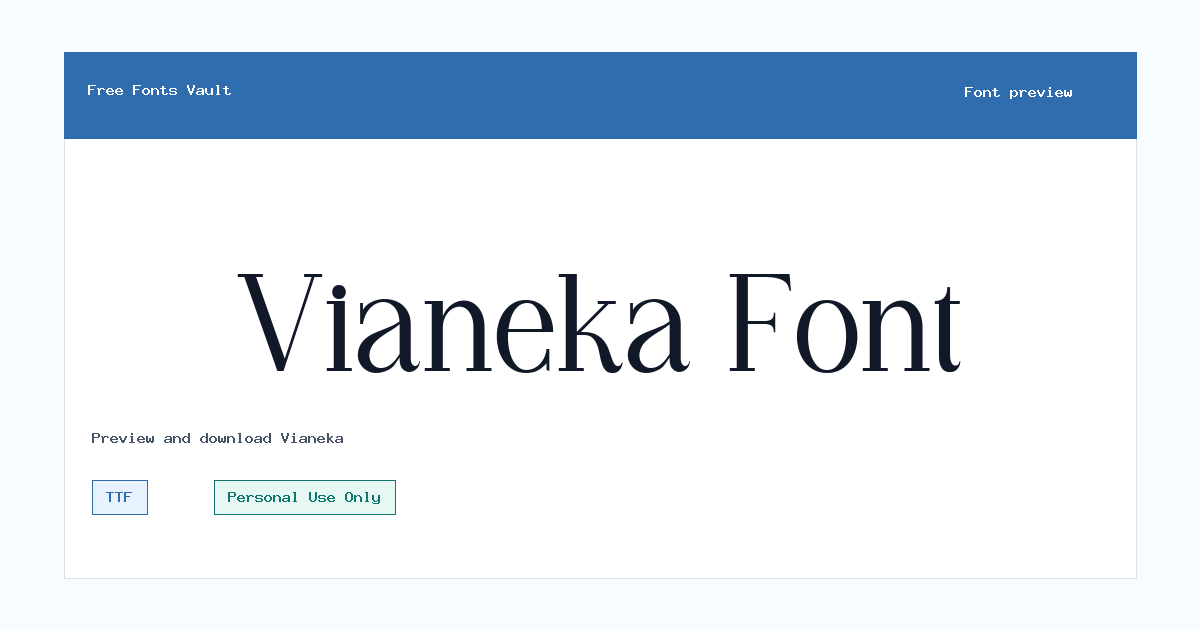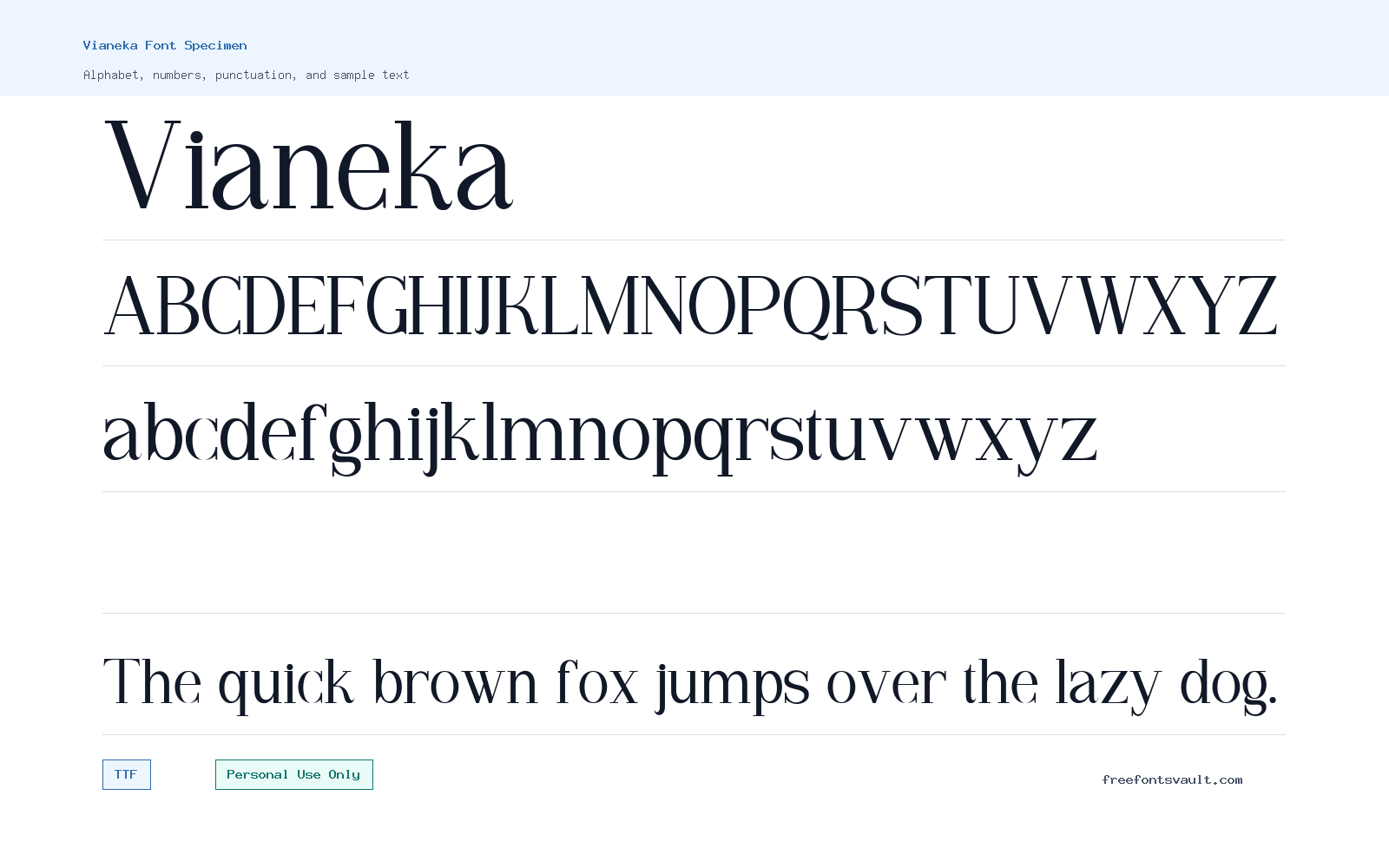
Vianeka
Vianeka font.
Vianeka is a serif font for visitors who want a polished display style for personal design tests, mockups, and short pieces of text. It comes as a regular TrueType font file and should be treated as Personal Use Only unless you confirm different rights from the font owner.
About Vianeka Font
Vianeka works best when you give it room to show its serif character. Use the preview box to test the exact words you plan to use, especially names, brand-style headings, invitations, quotes, or social graphics. Because only the regular style is present, it is better suited to finished-looking display text than to a full typography system with bold, italic, and multiple weights. Try it in larger sizes first, where spacing, curves, and letter shapes are easier to judge.
For practical use, keep Vianeka focused on short text. It can be useful for personal posters, mood boards, title cards, packaging mockups, Pinterest graphics, quote images, and logo concept drafts. If you need body copy, pair it with a quiet sans serif or a simple text serif so the page remains easy to read. Before downloading, preview uppercase, lowercase, numbers, and punctuation. Also test tricky letter pairs in your own wording, because display fonts can look very different depending on the word.
- Serif display direction suited to headings, short labels, and personal concept work
- Personal logo drafts, name styling, and branding mockups
- Invitations, quote graphics, social posts, posters, and title layouts
What fonts pair well with Vianeka?
Use a clean sans serif or a simple reading serif for supporting text. Let Vianeka handle the title or accent words, and keep longer paragraphs in the plainer companion font.